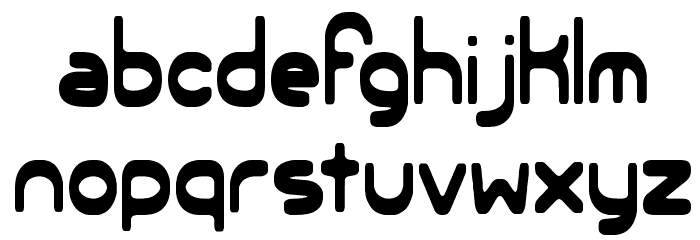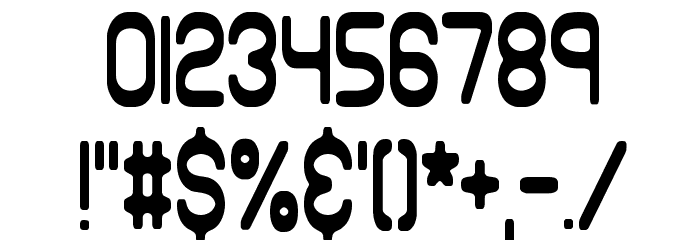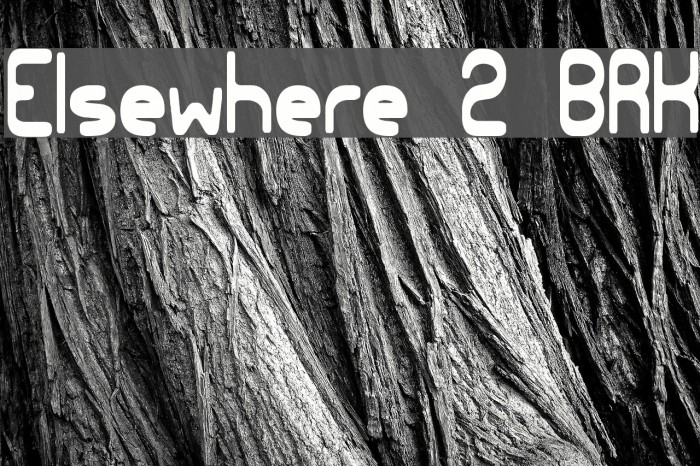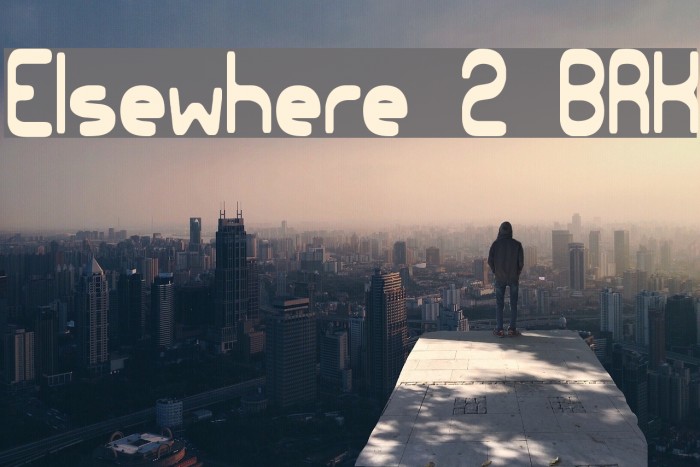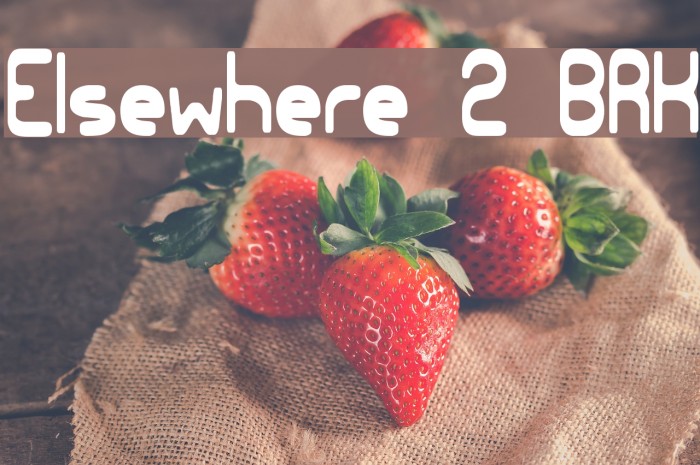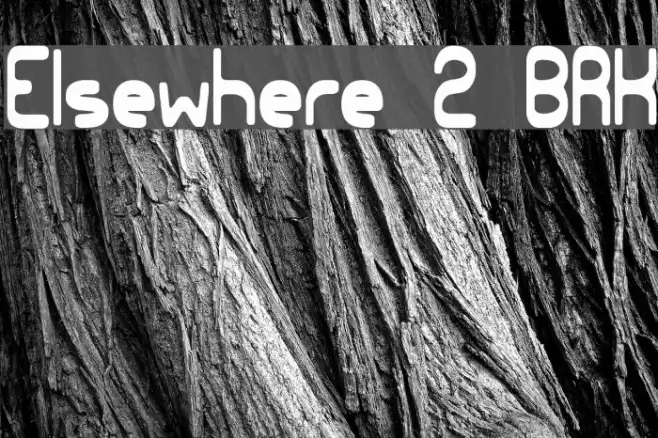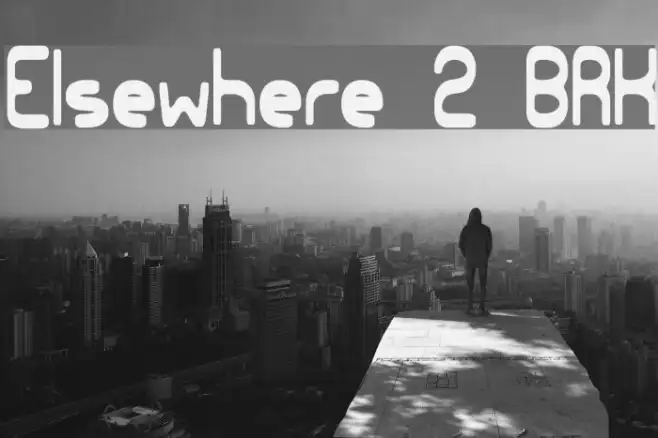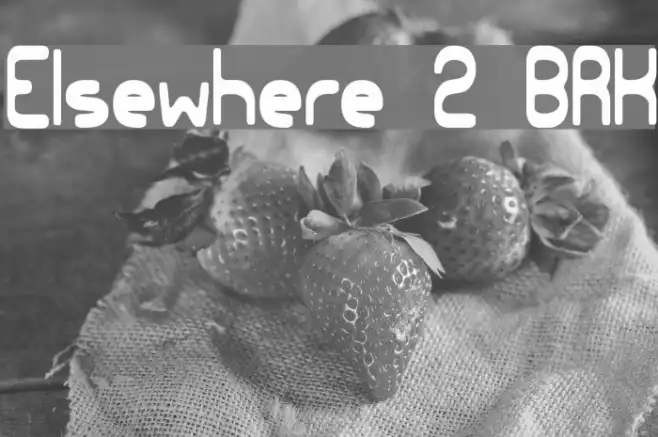
Elsewhere 2 BRK Font
This font features a playful and rounded design with a distinctively bold appearance. The characters are uniformly thick, giving it a strong presence. The rounded edges and consistent stroke width contribute to a friendly and approachable look. The uppercase and lowercase letters maintain a cohesive style, with the lowercase letters slightly more compact. Numbers and special characters follow the same design principles, ensuring uniformity across all glyphs. This font's unique style makes it suitable for creative and informal applications.
A bold, rounded font with a playful and approachable design.
- Font: Elsewhere 2 BRK
- Proposed Projects: Ideal for children's books, playful branding, posters, and creative digital content.
- Overall Style: Playful